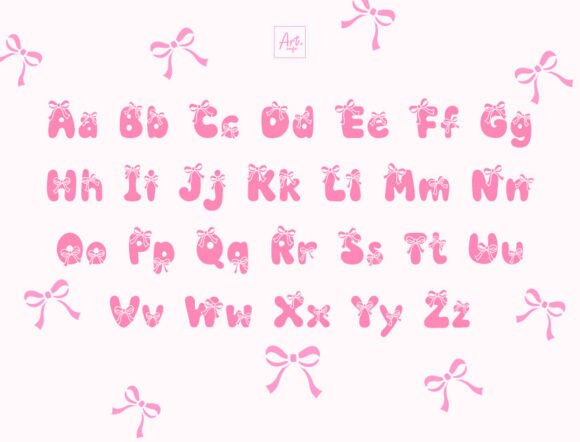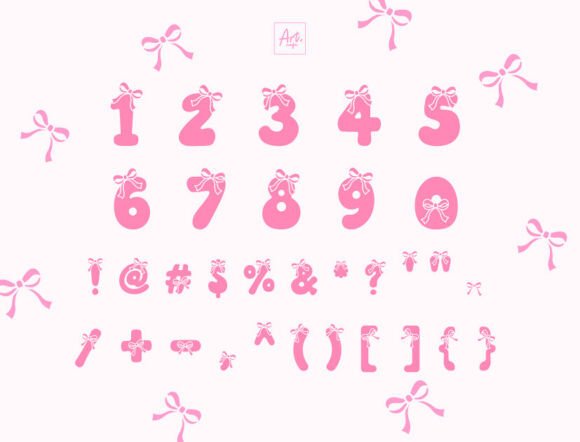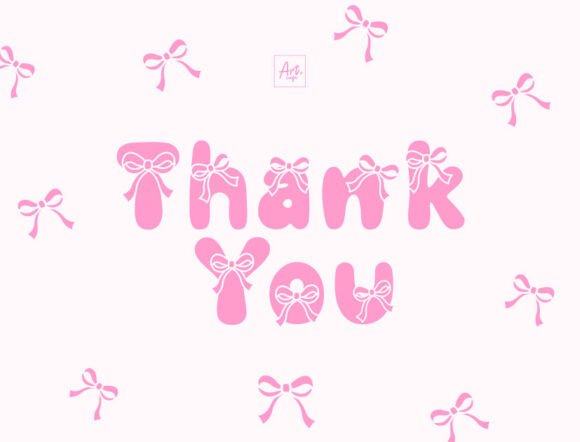
Introducing Coquette Bow Font: The Ultimate Decorative Font for Girly and Whimsical Designs
Are you a designer or crafter looking for a font that adds a touch of femininity and whimsy to your projects? Look no further than Coquette Bow Font, an audaciously bold decorative font designed specifically for headline posters and projects that need a dash of intrigue. Infused with charmingly cute girly bow details, this font is perfect for designs that require a sense of enchantment and playfulness.
The Story Behind Coquette Bow Font
Coquette Bow Font is more than just a font – it’s an experience. Every letter tells a whimsical story, transporting you to a world of wonder and magic. This font is designed to evoke a sense of curiosity and playfulness, making it perfect for projects aimed towards children or those that require a touch of femininity. Whether you’re designing a poster, a greeting card, or a social media graphic, Coquette Bow Font is sure to elevate your design and add a dash of whimsy.
Key Features of Coquette Bow Font
- Audaciously bold and decorative: Coquette Bow Font is designed to make a statement. Its bold and decorative style ensures that your design stands out from the crowd.
- Charmingly cute girly bow details: The font’s charming bow details add a touch of femininity and whimsy to your design.
- Perfect for girly, bubbly, and youthful designs: Coquette Bow Font is ideal for projects that require a sense of playfulness and enchantment.
- Suitable for children and feminine projects: The font’s playful and whimsical style makes it perfect for projects aimed towards children or those that require a touch of femininity.
How to Use Coquette Bow Font in Your Designs
Coquette Bow Font is incredibly versatile and can be used in a variety of design projects. Here are a few ideas to get you started:
- Headline posters: Use Coquette Bow Font to create eye-catching headline posters that grab attention.
- Greeting cards: Add a touch of whimsy to your greeting cards with Coquette Bow Font.
- Social media graphics: Use the font to create playful and engaging social media graphics.
- Children’s party invitations: Coquette Bow Font is perfect for designing children’s party invitations that require a touch of playfulness and enchantment.
Tips for Getting the Most Out of Coquette Bow Font
Here are a few tips to help you get the most out of Coquette Bow Font:
- Experiment with different colors: Coquette Bow Font looks great in a variety of colors. Experiment with different hues to find the perfect combination for your design.
- Pair with other fonts: Try pairing Coquette Bow Font with other fonts to create a unique and interesting design.
- Use it sparingly: While Coquette Bow Font is bold and decorative, it can be overwhelming if used excessively. Use it sparingly to add a touch of whimsy to your design.
Coquette Bow Font is a unique and versatile decorative font that’s perfect for designers and crafters looking to add a touch of femininity and whimsy to their projects. With its audaciously bold style and charmingly cute girly bow details, this font is sure to elevate your design and add a dash of intrigue. Whether you’re designing a poster, a greeting card, or a social media graphic, Coquette Bow Font is the perfect choice. So why wait? Step into the world of wonder with Coquette Bow Font and let your designs tell a whimsical story.